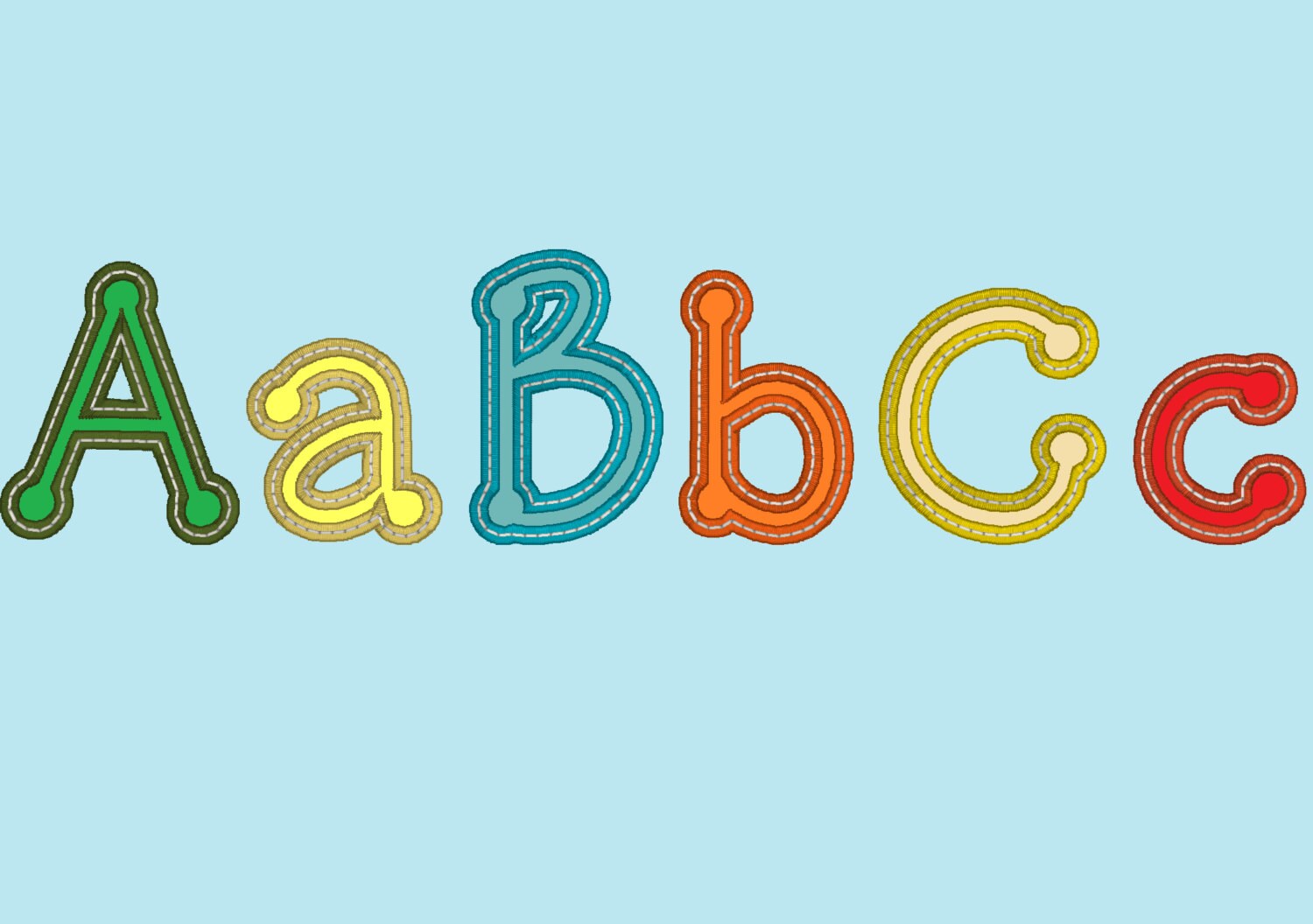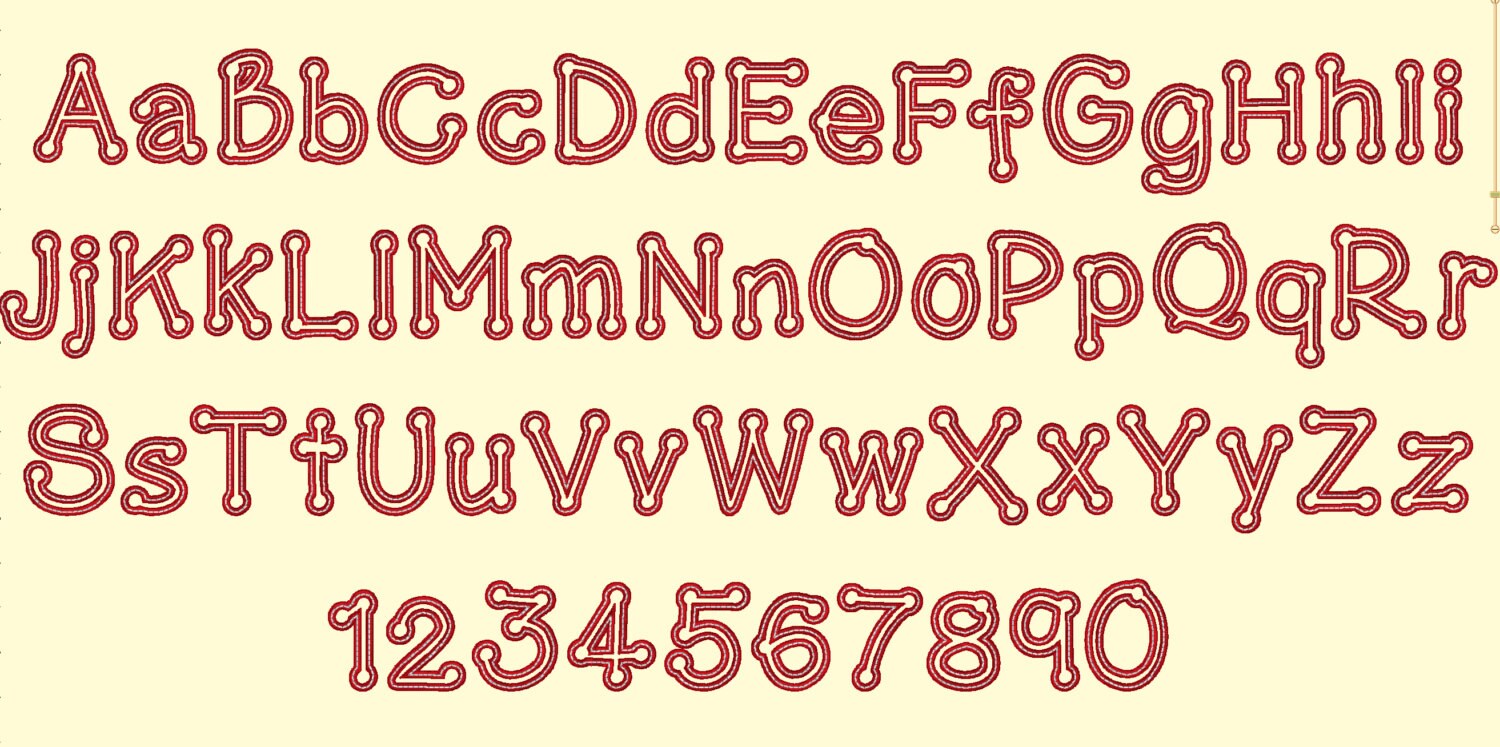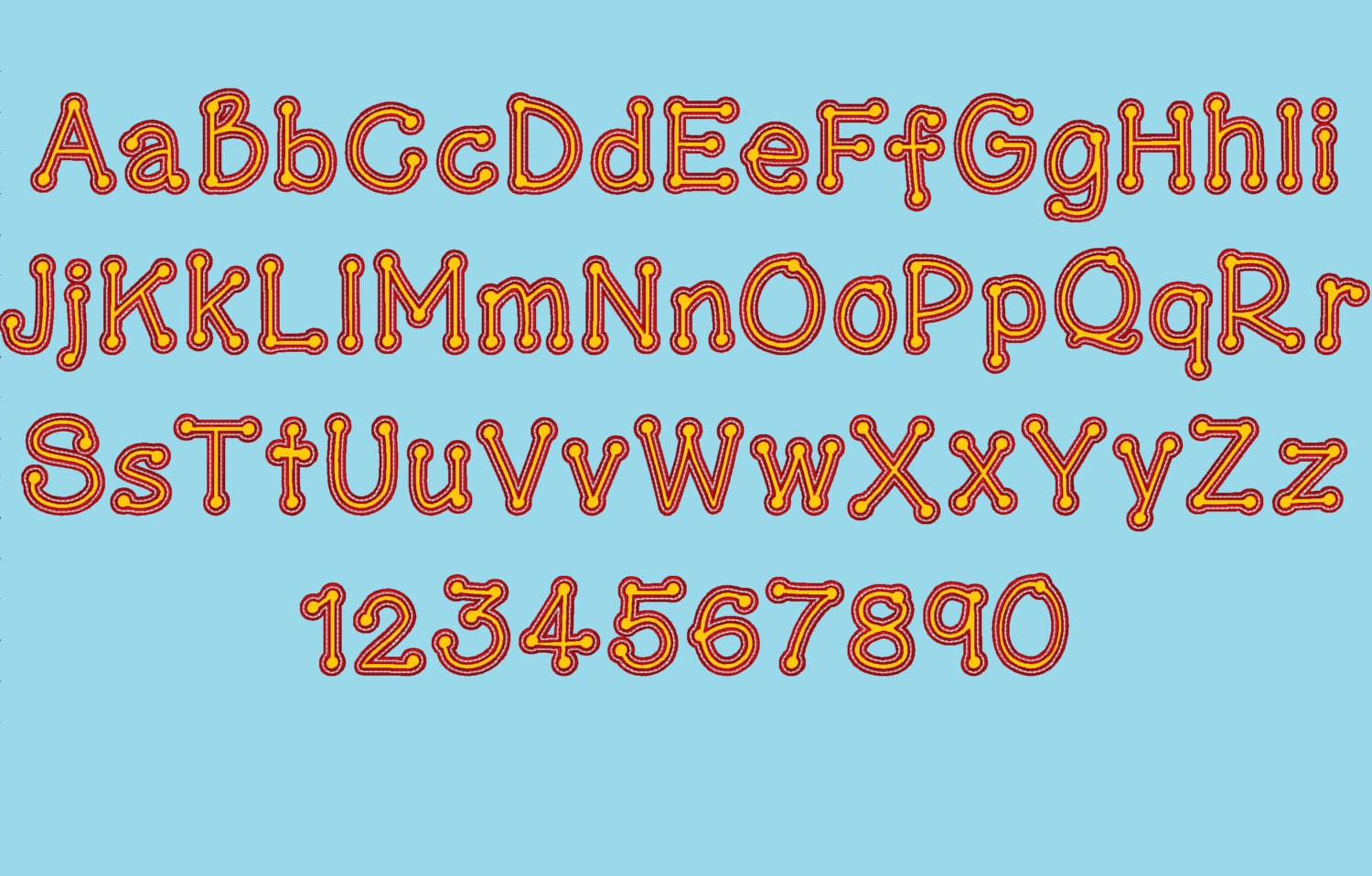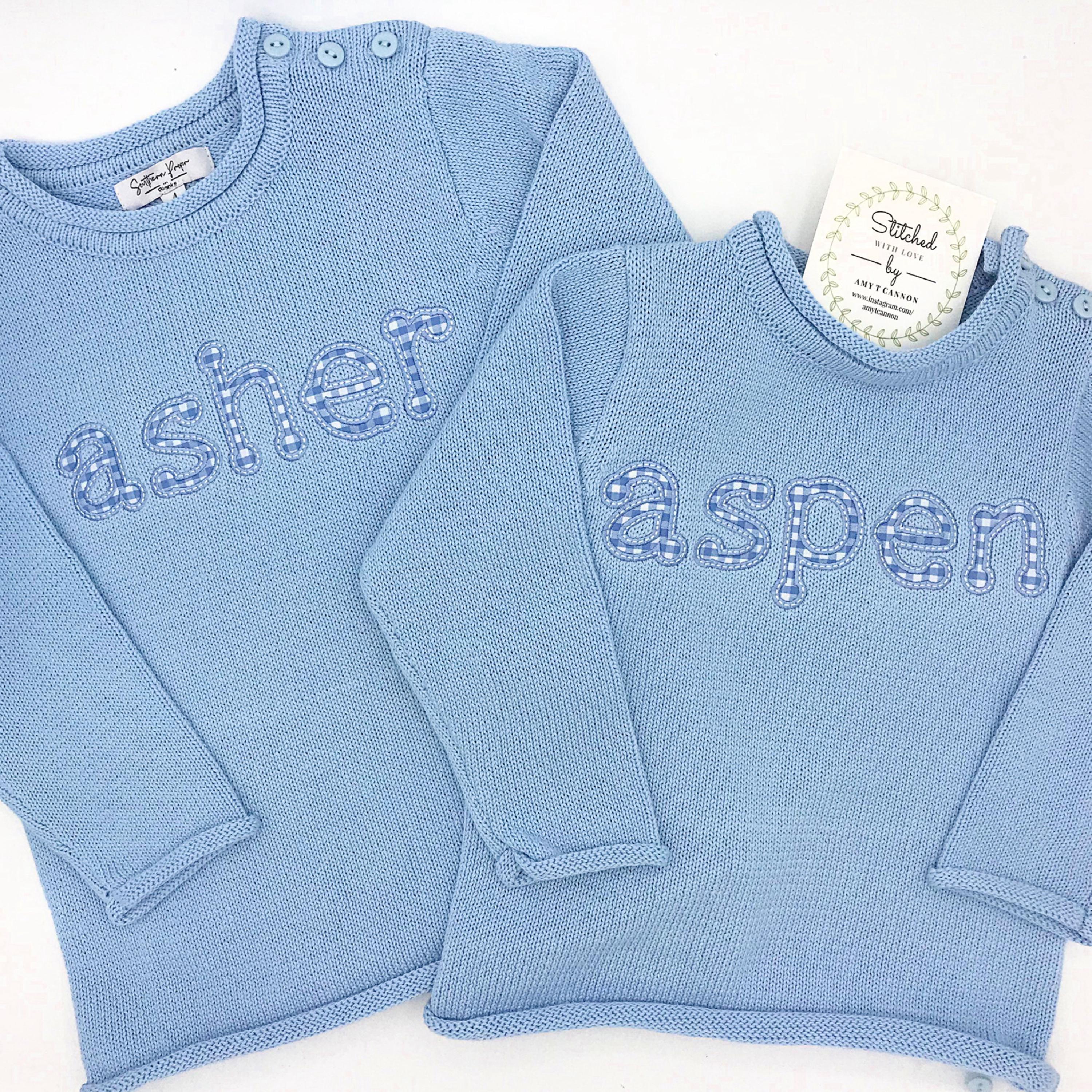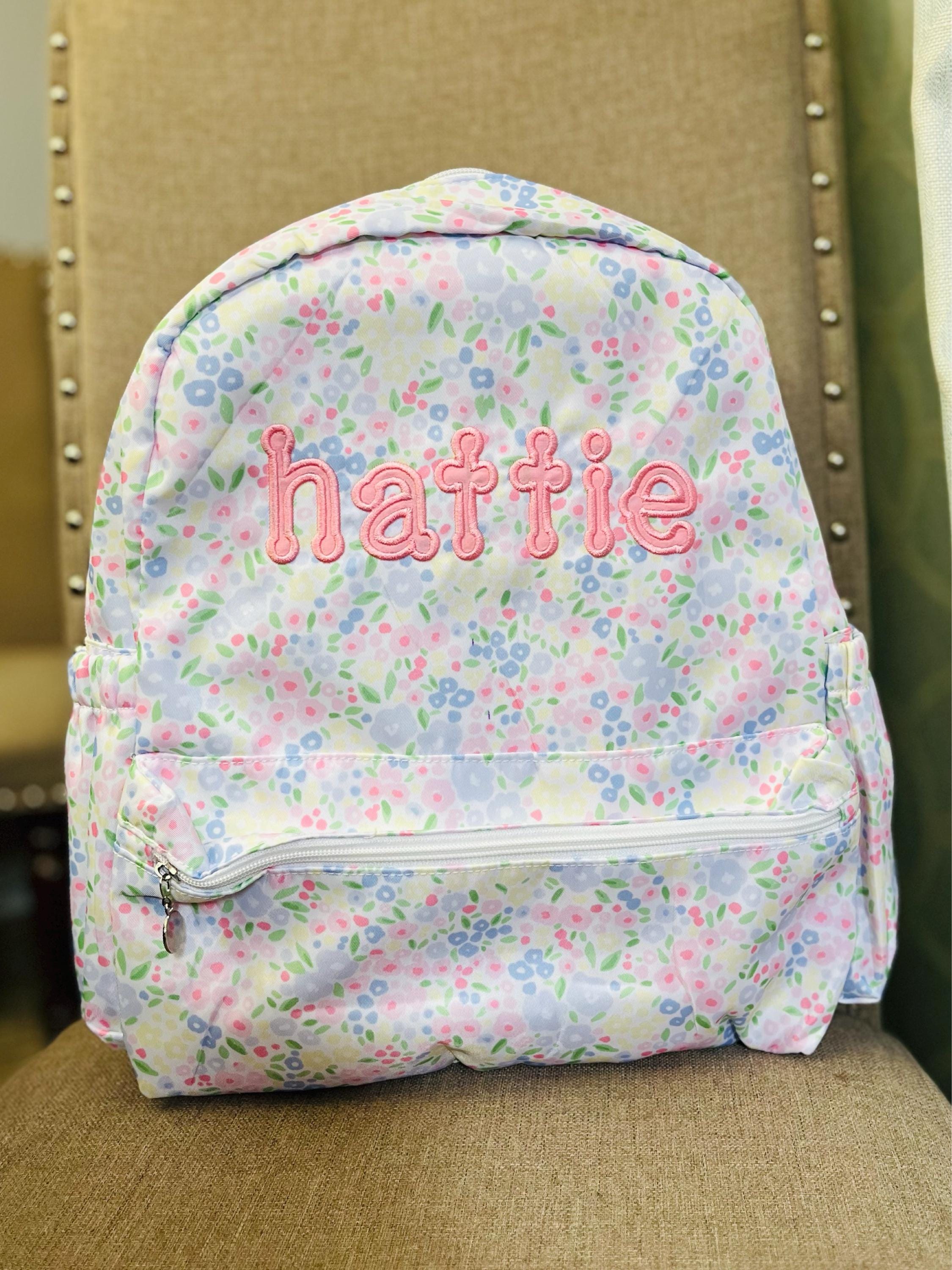
Dots applique alphabet Font machine embroidery applique designs INSTANT DOWNLOAD cap, letters and numbers 2 1/2, 3 1/2 and 4 1/2 inches, BX
Whole alphabet capital letters and lowercase letters, and numbers.
Applique design
Has a wide nice satin stitch and white top stitch for a neat look.